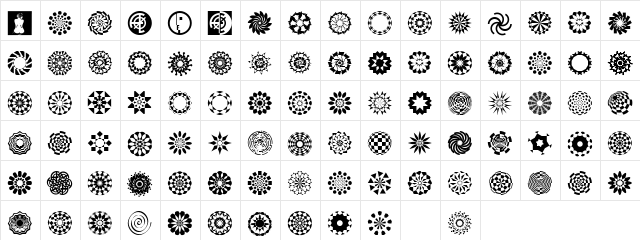
Wach Op-Art Regular
| Foundry | deFharo |
| Designer | Fernando Haro |
Design Context for Wach Op-Art Typeface
Wach Op-Art is a composed and adaptable typeface that performs quietly and consistently across a wide range of design contexts.